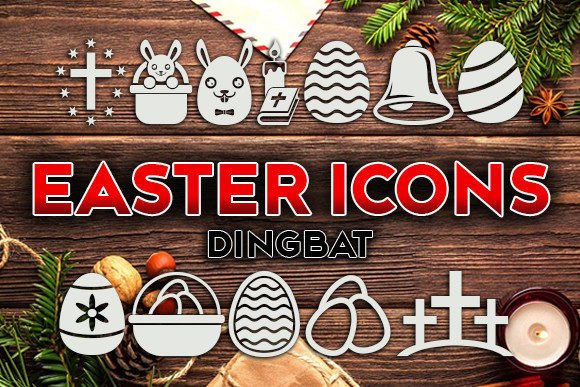
Behold the Easter Icons Font, an extraordinary dingbats font that will transform your Easter designs into captivating masterpieces. Unleash your creativity and let your imagination soar as you utilize this adorable typeface to craft posters, flyers, and an array of other projects that demand a touch of Easter magic.
Immerse yourself in a world of captivating characters that exude the essence of Easter. Playfully incorporate colorful eggs, mischievous bunnies, and other delightful symbols of the season into your designs. The Easter Icons Font is your gateway to unlock endless possibilities, enabling you to weave enchanting tales and evoke a sense of wonder in all who encounter your creations.
With the Easter Icons Font at your disposal, you hold the key to unlocking a world of visual enchantment. Transform your designs into captivating expressions of Easter cheer, spreading joy and warmth wherever they are seen. Let your imagination run wild as you craft Easter greetings, invitations, and other printed materials that radiate the spirit of the season.
Unleash the true essence of Easter with the Easter Icons Font. Let your designs speak volumes, conveying messages of love, hope, and renewal. Craft Easter-themed social media posts that capture the hearts of your audience, leaving an indelible mark on their minds.